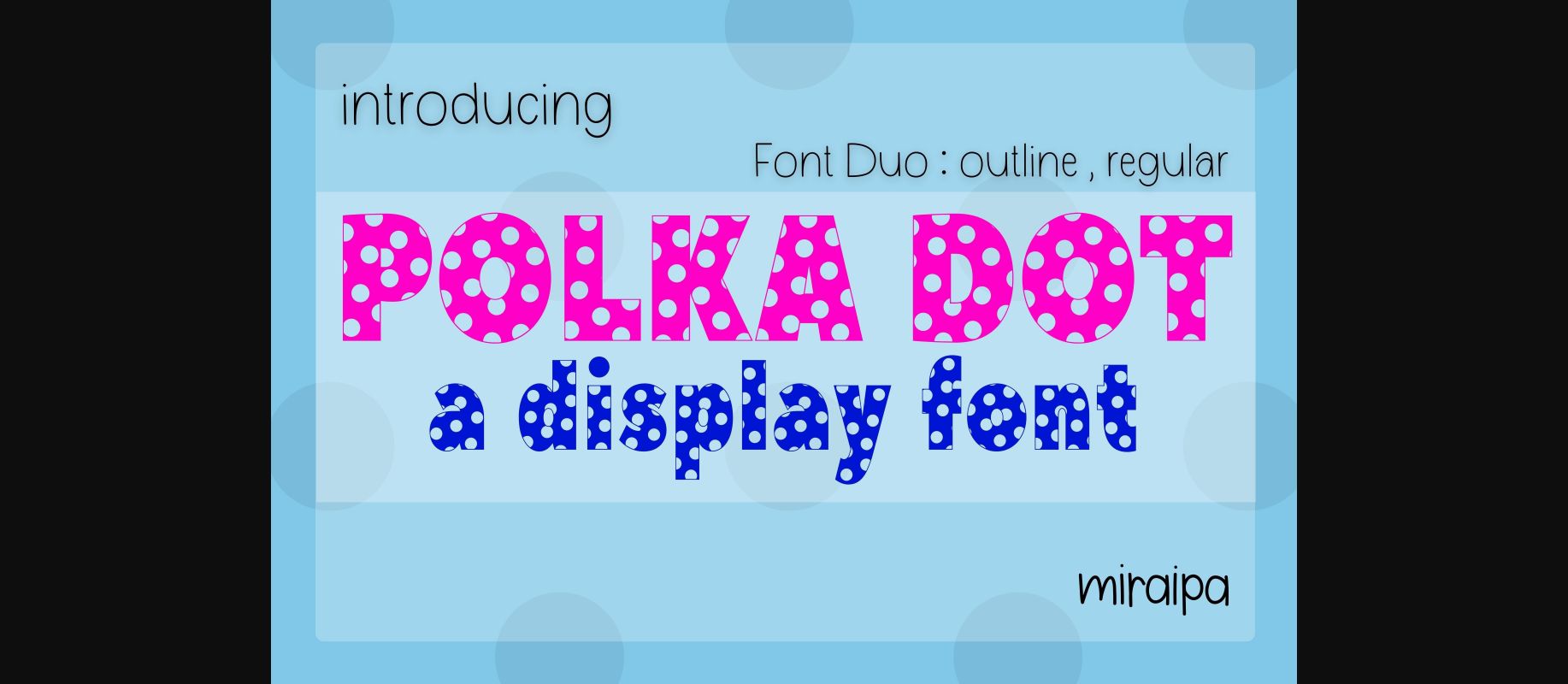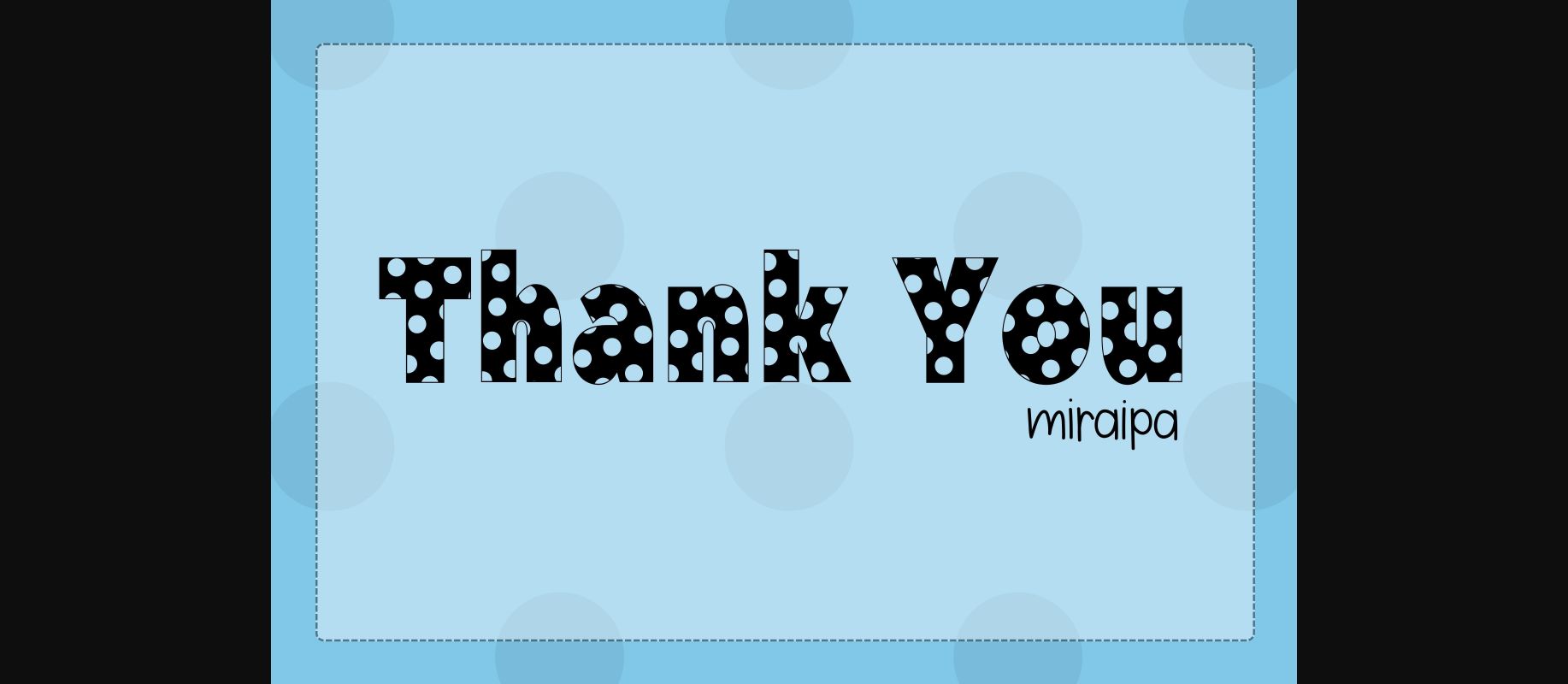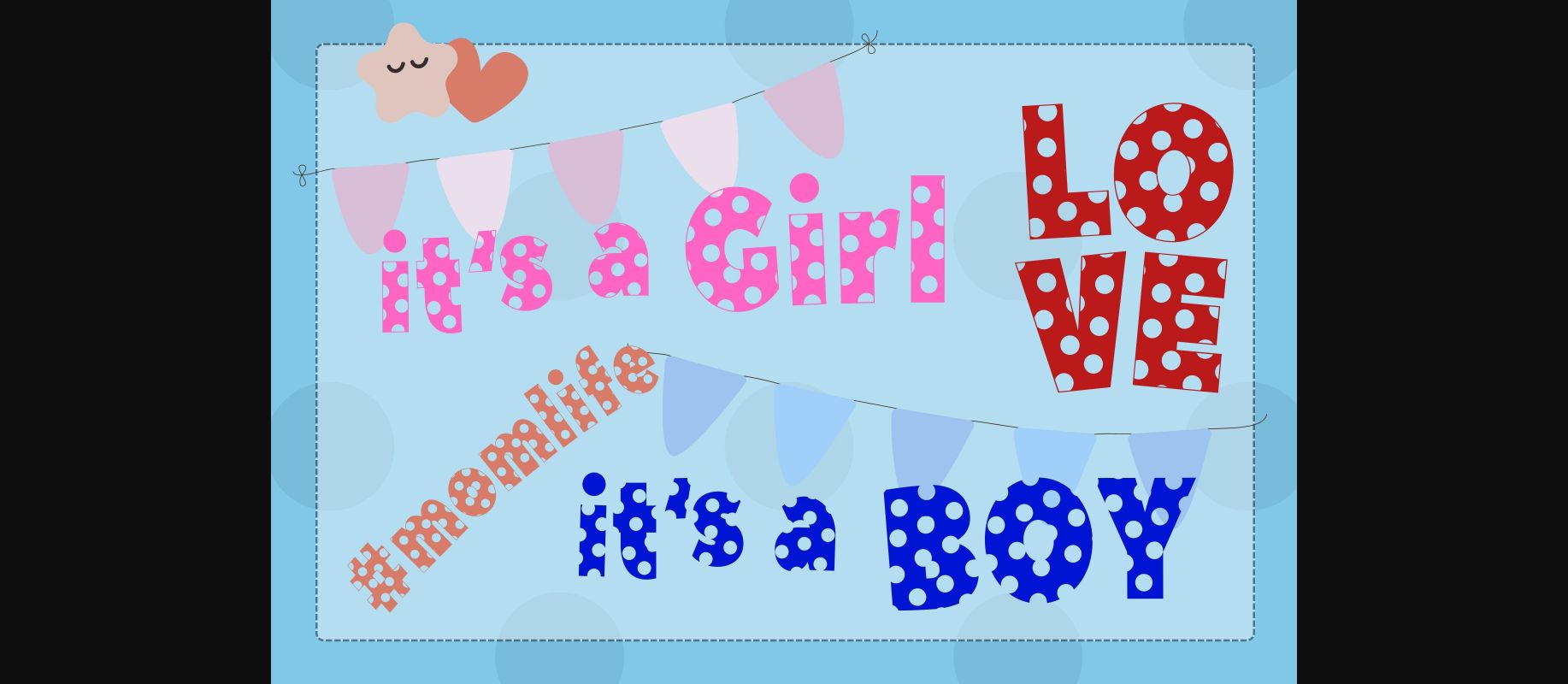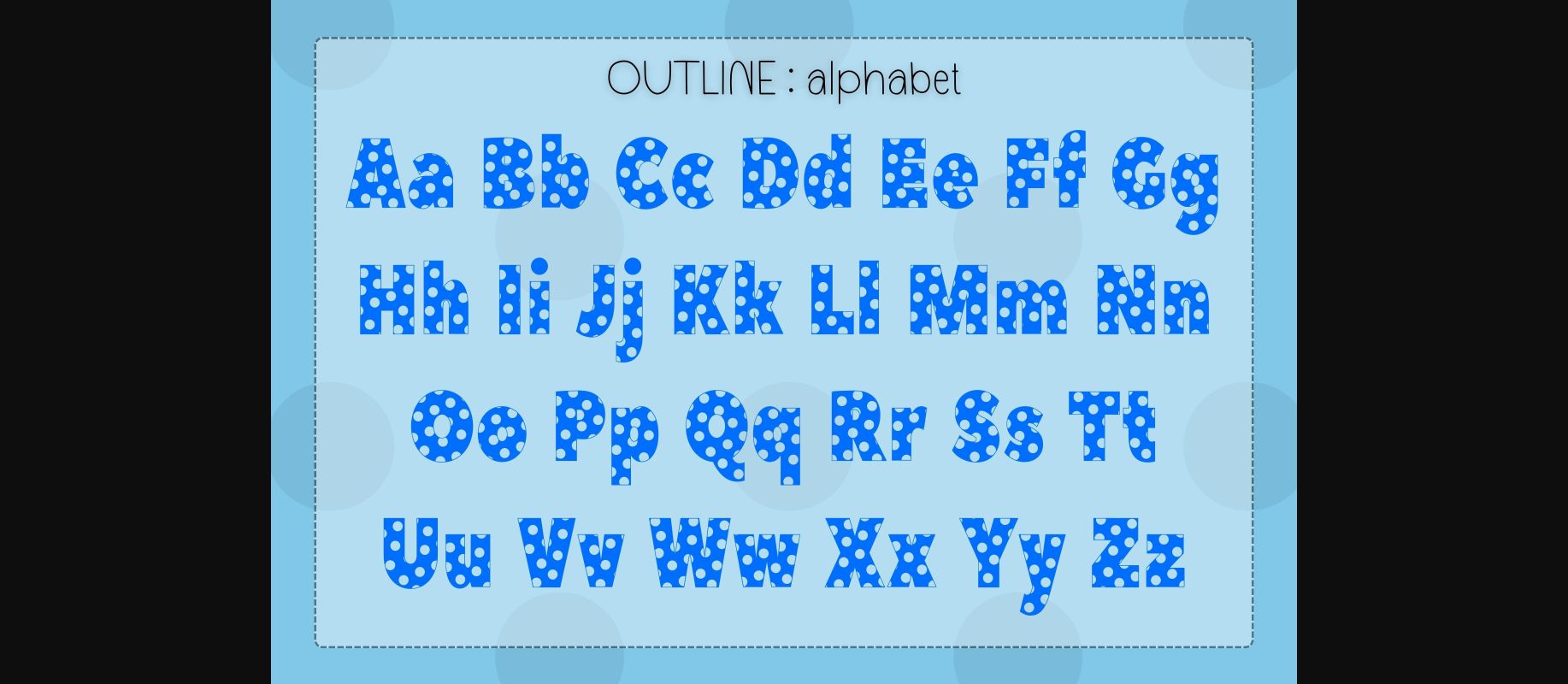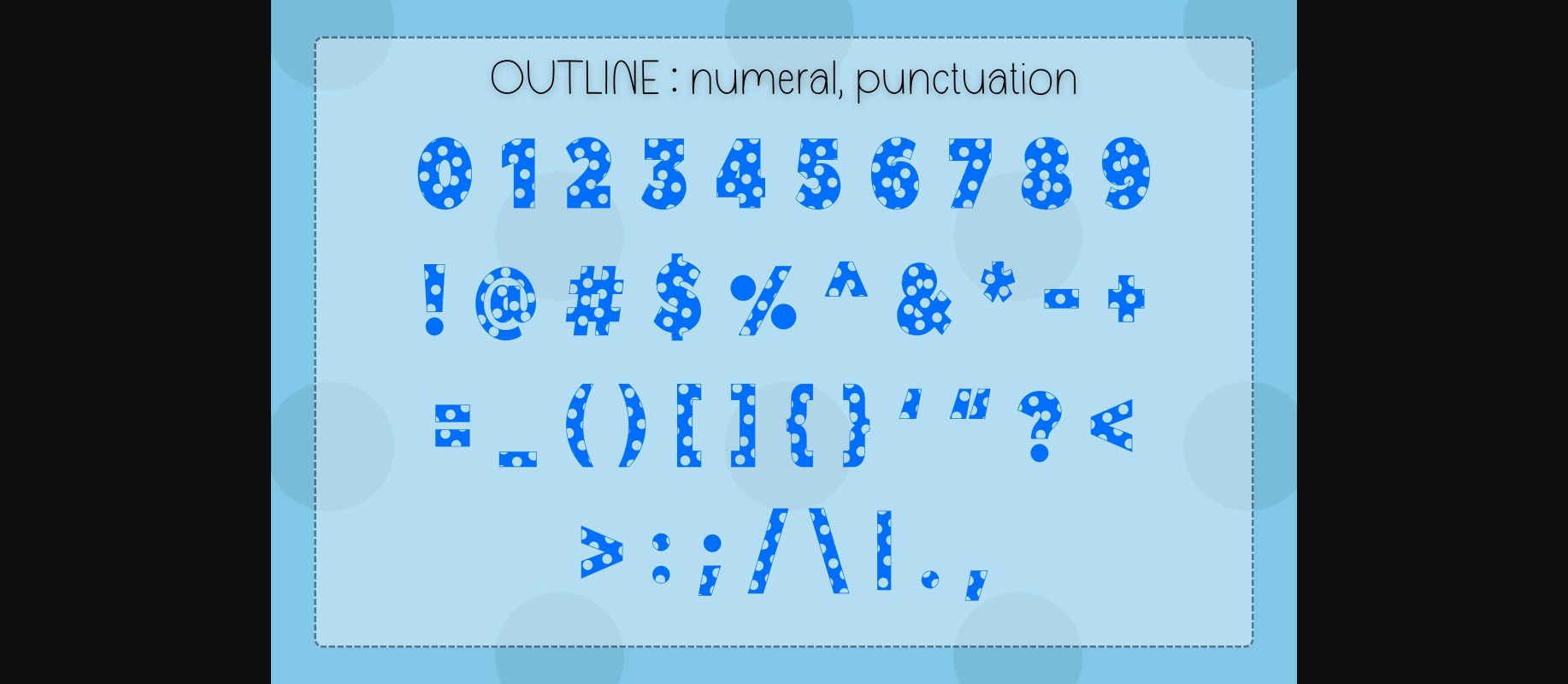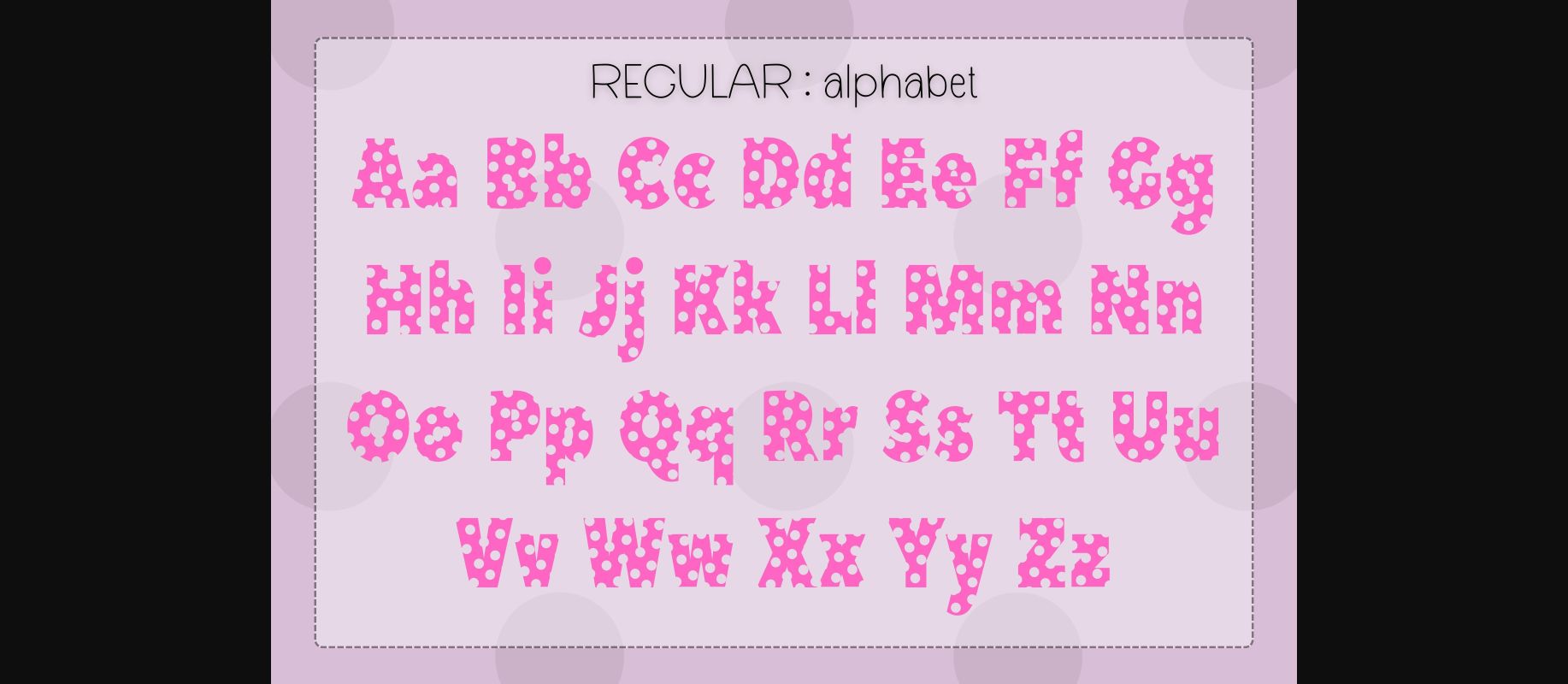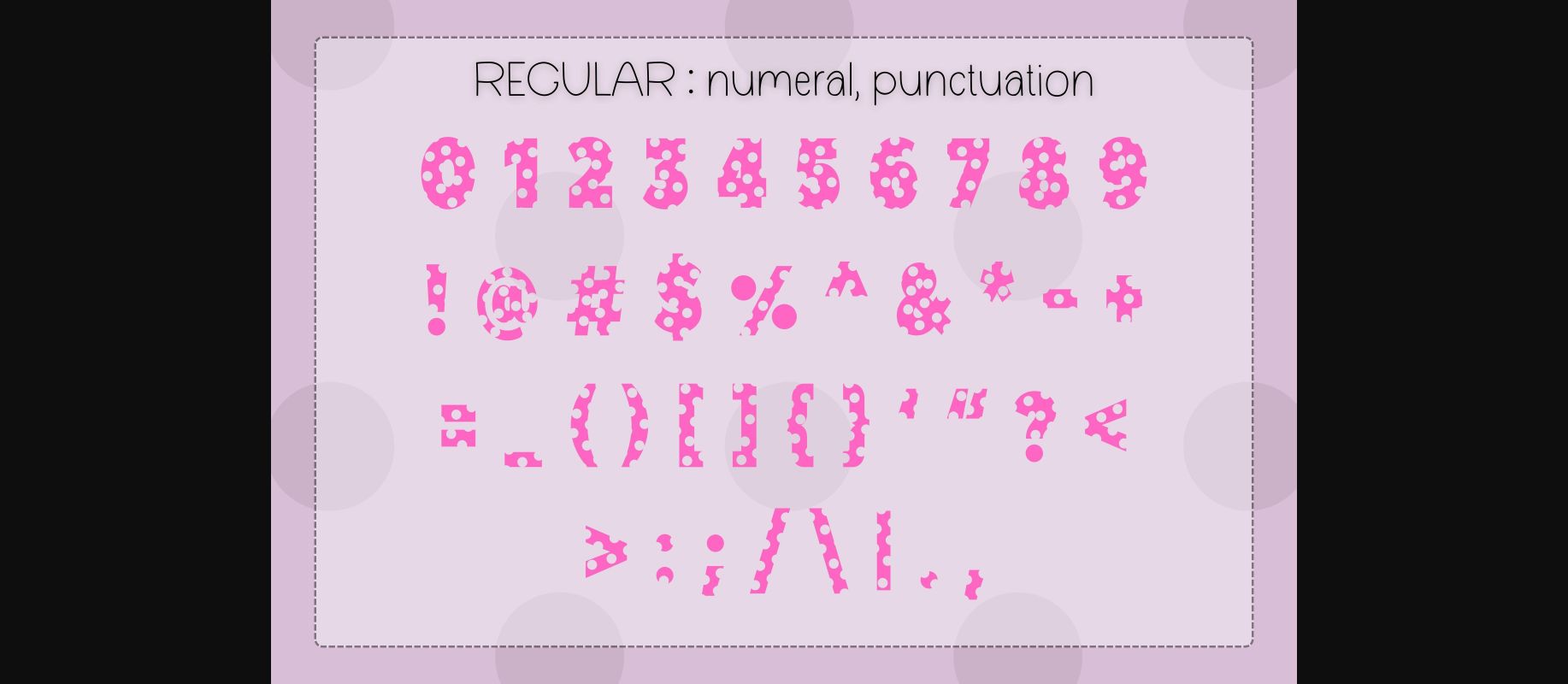
About Polka Dot Duo Font
Polka Dot Font Duo is a fun and quirky display font. Designed in a lovely and playful style that is suitable for cute projects such as baby showers, back to school, and kids’ clothing it will instantly add a touch of friendliness to your designs.